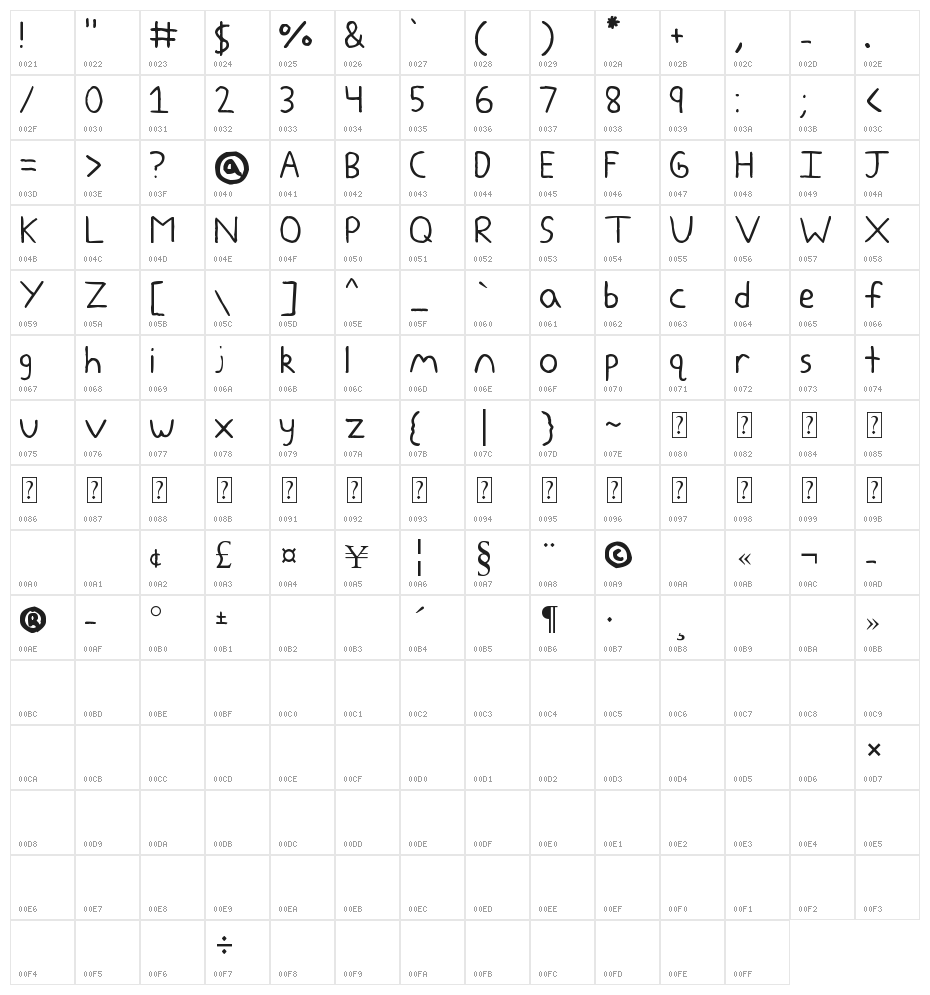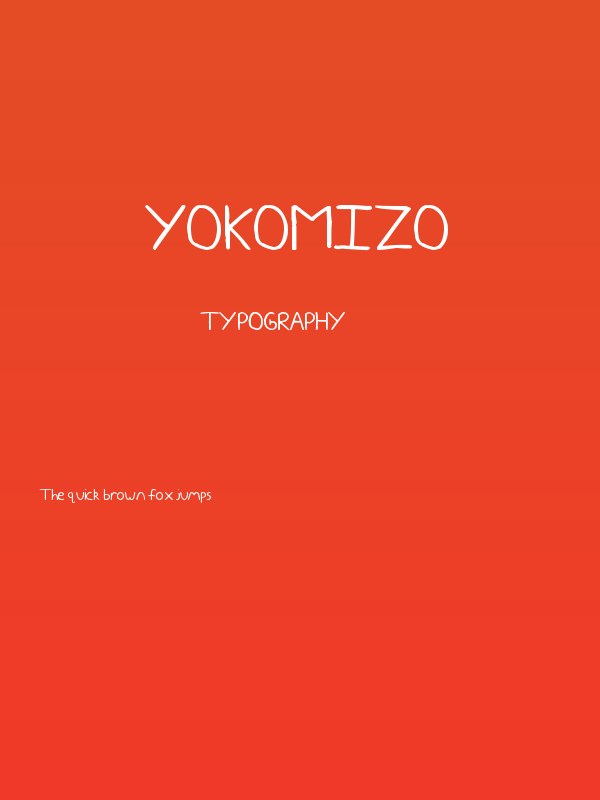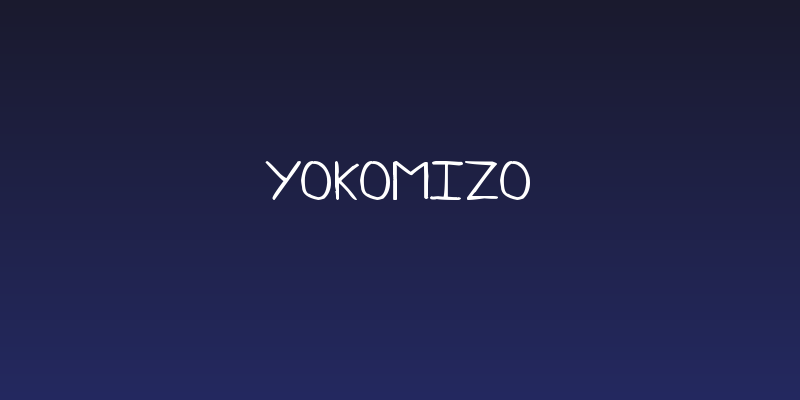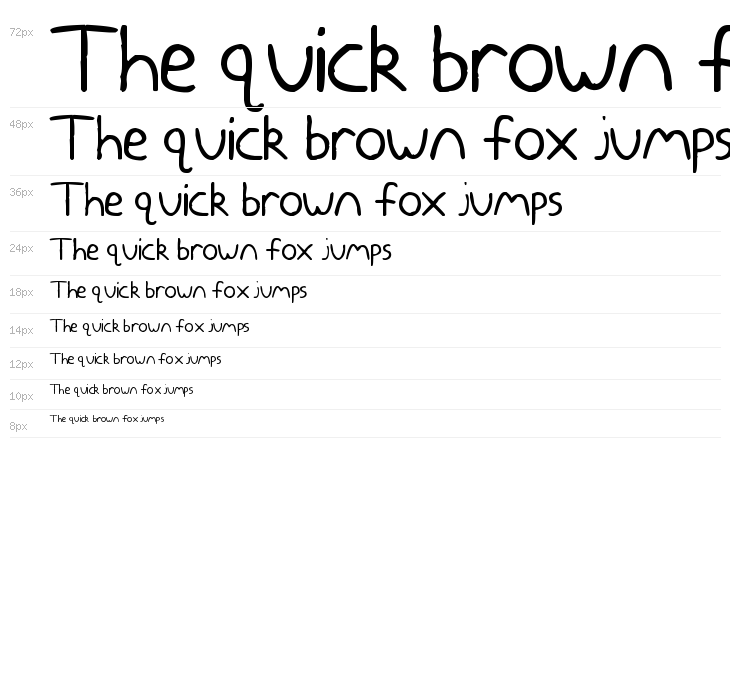
Yokomizo Font
| Stile generale | Casual |
| Caso d'uso | Headlines, Informal text, Creative projects |
| Progetti proposti | Ideal for greeting cards, children's books, personal blogs, and informal branding. |